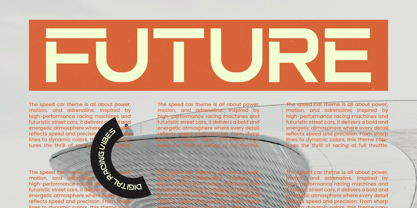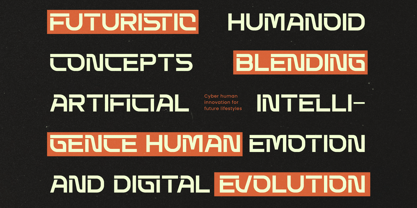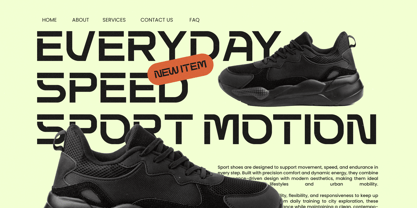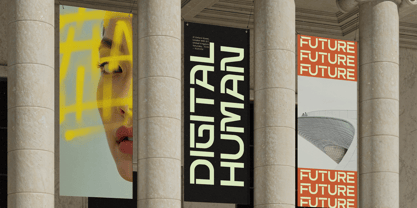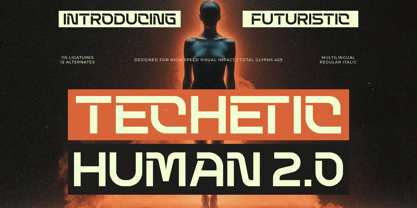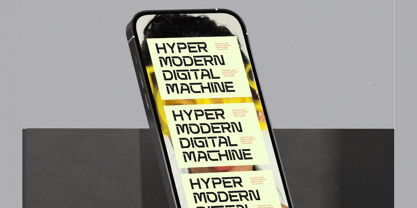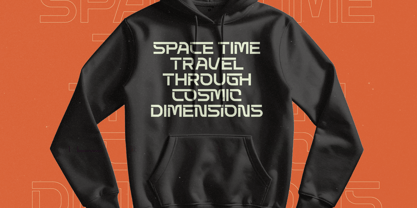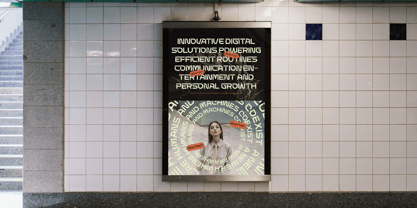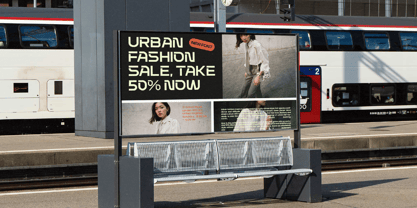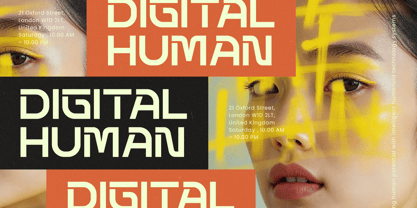
Techetic Human
La familia tipográfica Techetic Human fue diseñada por Heru Utama Putra y publicada por Timelesstype Studio. Techetic Human contiene 2 estilos y opciones de paquete familiar. Más información sobre esta familia
Techetic Human 2.0 is a futuristic sans serif display font built for high-impact visuals, featuring sharp geometric structures, extended letterforms, and a clean techno rhythm inspired by sci-fi interfaces and cyber aesthetics. The design emphasizes precision, speed, and modernity, making it ideal for bold headlines, technology branding, game titles, film posters, UI concepts, esports graphics, futuristic editorials, and experimental visual projects. With strong uppercase dominance, consistent stroke weight, and advanced ligature support, this font delivers a powerful mechanical feel while remaining readable and versatile across digital and print use. Techetic Human 2.0 is engineered for designers who need a modern, aggressive, and forward-looking typeface that instantly communicates innovation and futuristic identity.